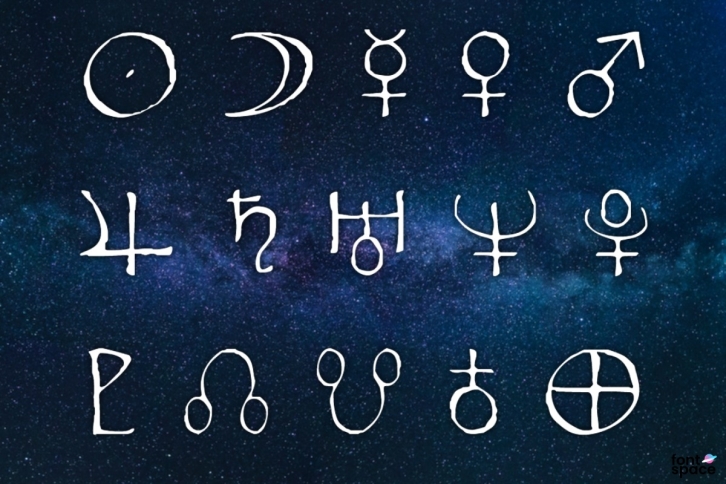
Widget, the 1st in the series, was created due to the distinct lack of alternative astrological fonts.
Designed in a semi handwritten/weathered style, inspired by the font Parchment/Papyrus.